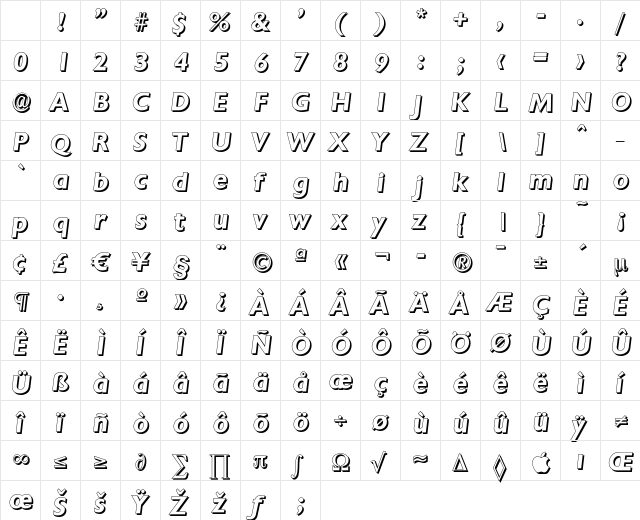
Complete ChantillyDropShadow Bold Italic glyph index. Displaying only characters natively supported by ChantillyDropShadow Bold Italic font.
ChantillyDropShadow is built around its visual character rather than neutral utility - its distinctive forms are designed to make an impression at display sizes. The slanted form adds forward momentum and visual energy. Its bold stroke weight gives it real presence on the page.
Font Pairing: Pair with a clean neutral sans-serif for body copy to let ChantillyDropShadow's character lead without overwhelming the composition.
Pro Tip: Use ChantillyDropShadow exclusively at display sizes - it was designed to be seen, not read at length. Let a neutral companion handle body copy.